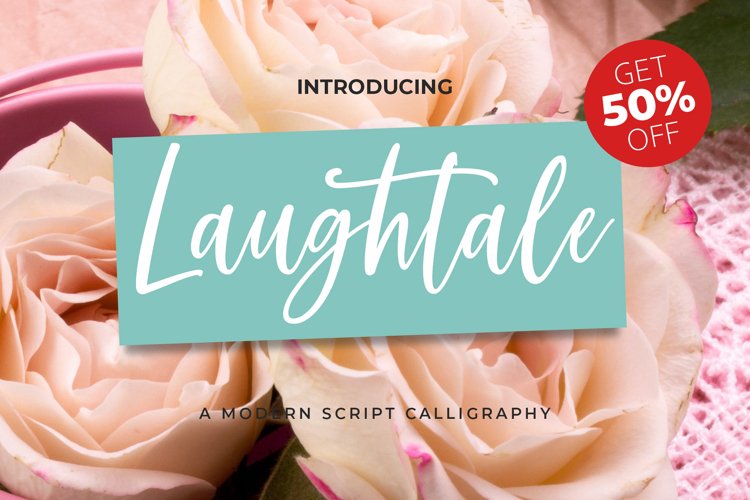
Laughtale is a quickly handwritten font. Written with a brush pen and tidied up for smooth and balanced results.
This font is perfect for quotes, social media, Instagram, logos, websites, blogs, home decor, wedding decor, invitations, branding, business cards, and many more.
Multilingual accent characters included.